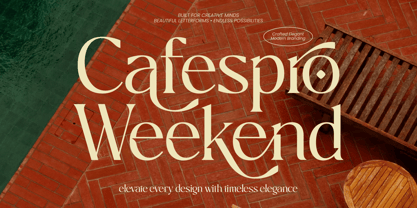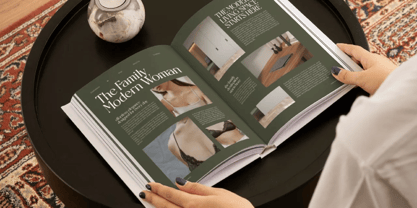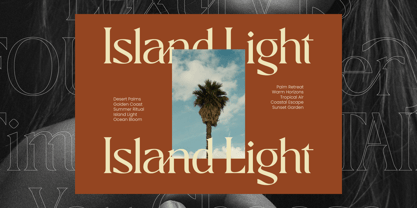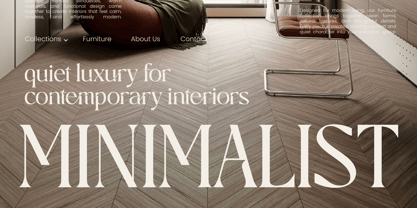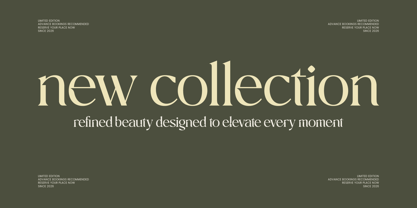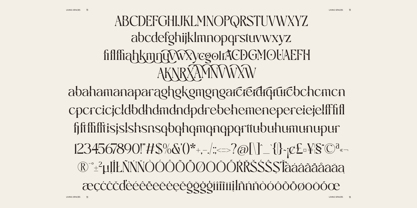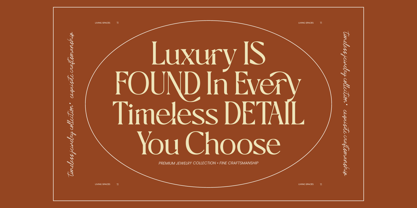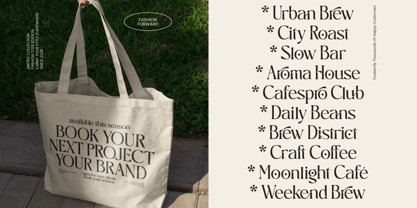
Cafespro Weekend
by Amorfa Type
The Cafespro Weekend Font Family was designed by Shiddiq Roihan and published by Amorfa Type. Cafespro Weekend contains 2 styles and family package options. More about this family
Cafespro Weekend is an elegant luxury display serif designed to capture sophistication, timeless beauty, and premium editorial aesthetics. Featuring refined high-contrast letterforms, graceful proportions, and expressive stylistic details, Cafespro Weekend creates typography that feels luxurious, fashionable, and effortlessly memorable.
Inspired by luxury magazines, boutique branding, premium packaging, fashion campaigns, and contemporary editorial design, this typeface transforms headlines into visual statements. Its elegant construction balances classic serif refinement with modern luxury sensibilities, making it ideal for brands and creatives seeking a polished and elevated visual identity.